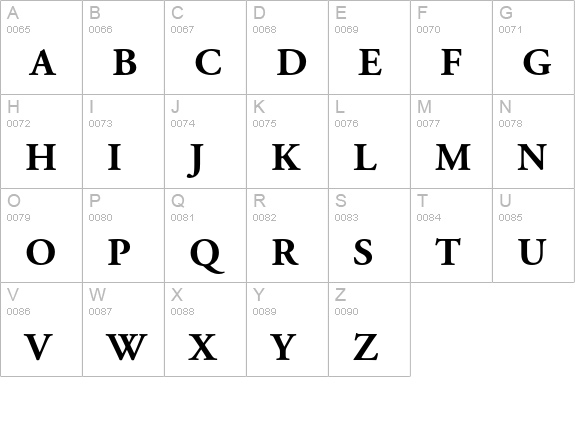
Adobe Garamond Pro Bold is a strong, high-contrast variant in the Adobe typeface family \xE2\x80\x94 well suited to headlines, attention-grabbing titles, and strong calls-to-action.
Adobe Garamond Pro Bold is a timeless and versatile typeface renowned for its classic elegance and refined appearance. With its bold weight, this font exudes strength and authority while maintaining a sense of sophistication and grace. The sturdy serifs and clean lines of Adobe Garamond Pro Bold make it an ideal choice for headlines, titles, and other prominent text in various design projects. This font is perfect for conveying a sense of tradition and professionalism, making it a popular choice for branding, editorial design, and signage. Its bold weight ensures excellent readability and visibility, allowing it to make a strong visual impact in any context. The best part is that Adobe Garamond Pro Bold is available for free download at FontsMarket.com. Whether you're a designer looking to enhance your projects with a timeless typeface or a business seeking a reliable font for your branding needs, Adobe Garamond Pro Bold is a fantastic choice that combines style, functionality, and accessibility. Download it today and elevate your designs with this exquisite font.